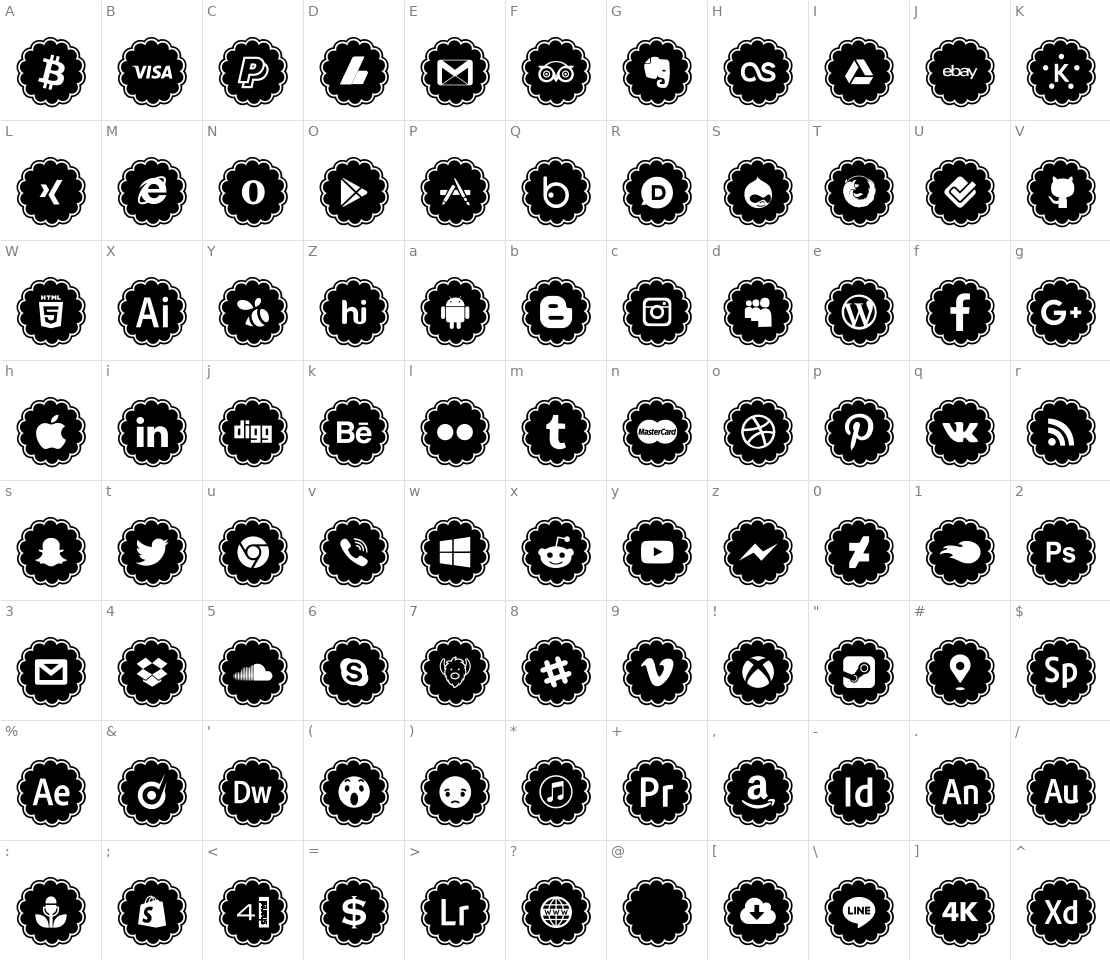
Social Icons
Social Icons is a symbol font by elharrak containing rounded icon glyphs for popular social media platforms and web services. Rather than traditional letterforms, each character maps to a recognizable brand badge, making it a practical tool for web designers and developers who want scalable social media icons without relying on image assets. Purely functional and decorative, it fills a specific niche in UI and digital layout work.